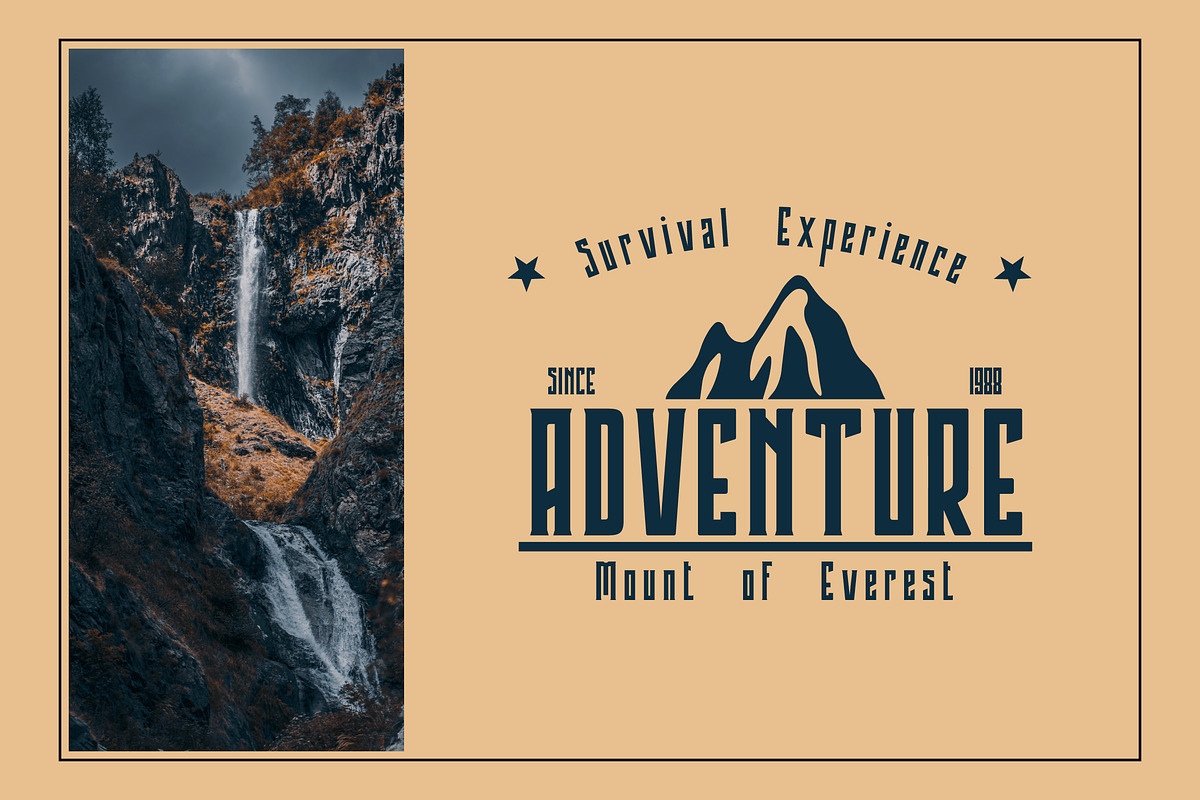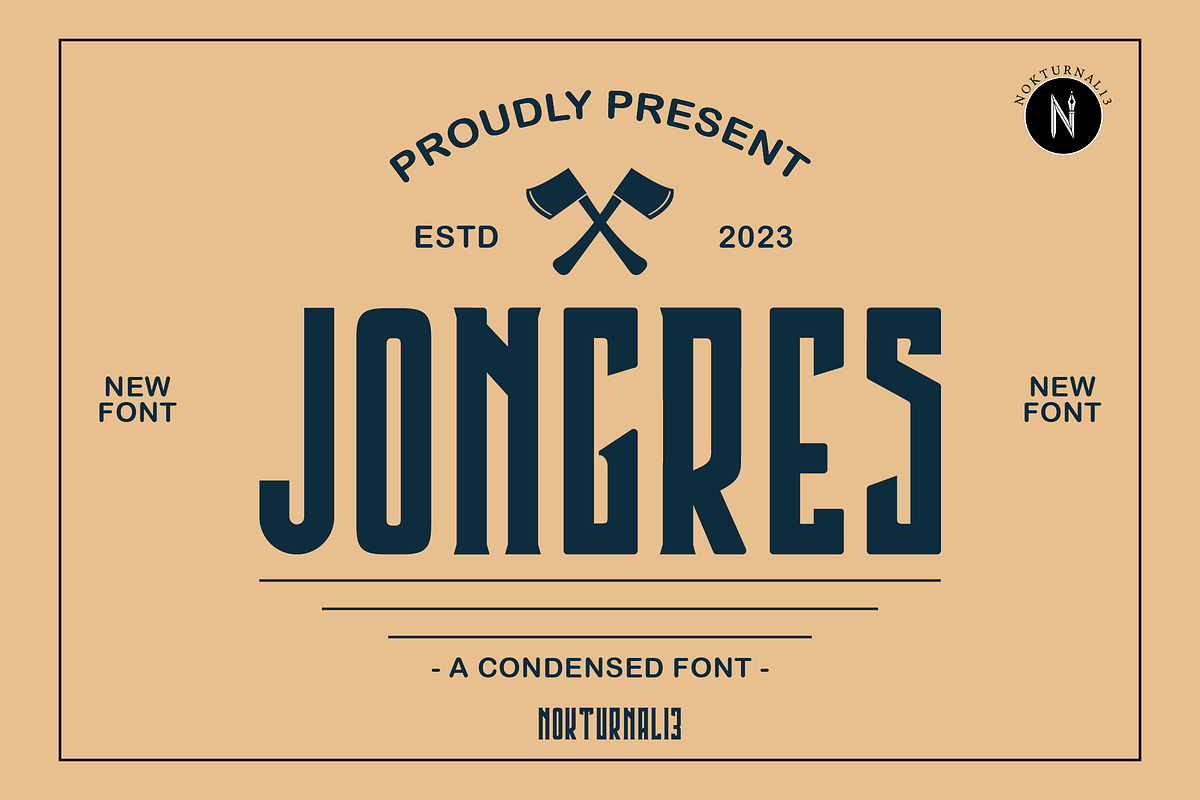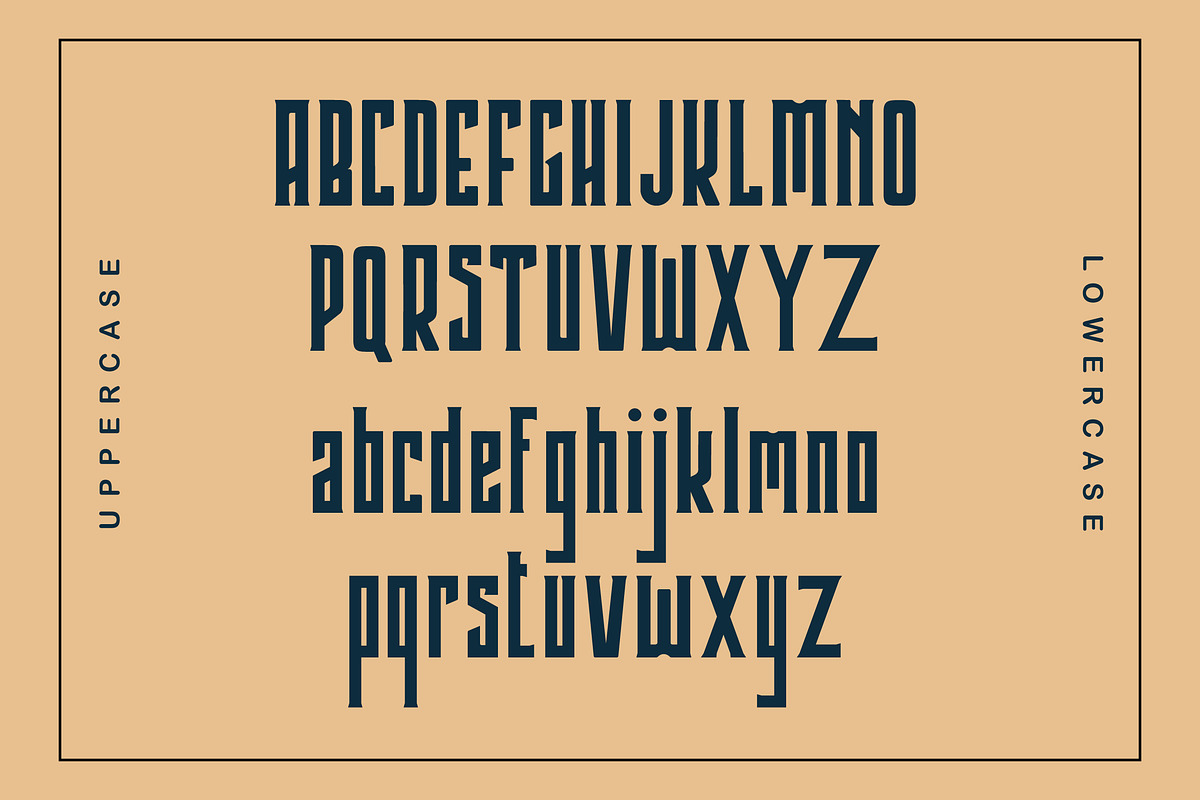
Jongres - Art Deco Geometric Display
Jongres is a condensed font with a strong, bold, and vintage character. Featuring tall and solid letterforms, Jongres evokes a classic and masculine feel. This font is ideal for headlines, posters, logos, label designs, branding, and any creative project that requires a bold and timeless touch.